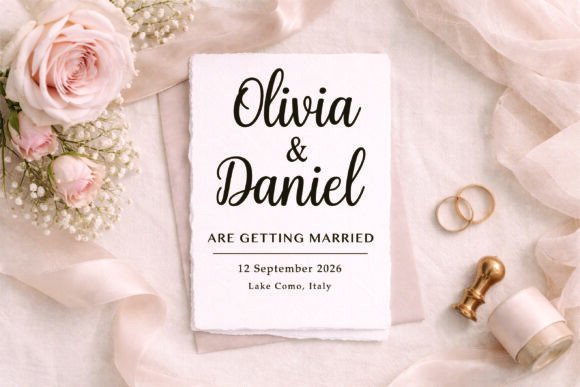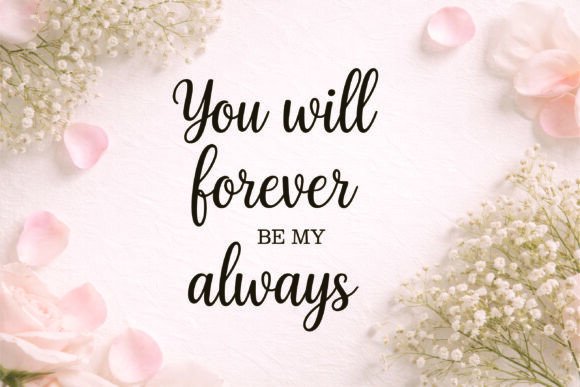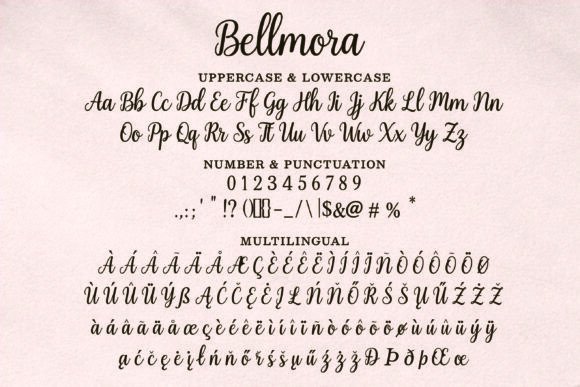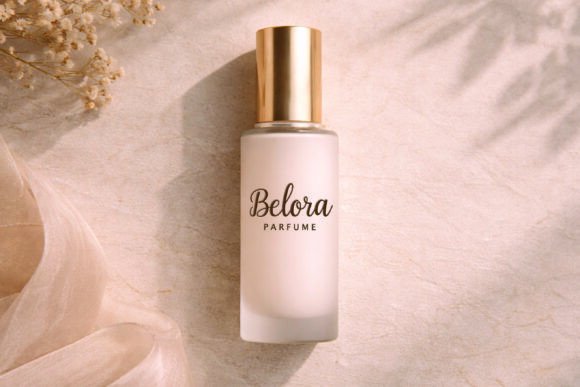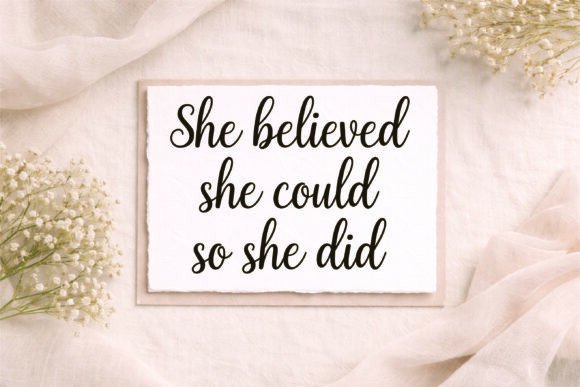
Bellmora Font: Elevate Your Designs with Elegance and Sophistication
In the world of typography, fonts play a crucial role in conveying the tone and personality of a design. For those seeking an elegant and modern script font that exudes romance and femininity, Bellmora is an exceptional choice. This stunning font is designed to bring sophistication and charm to various design projects, making it perfect for designers and crafters looking to elevate their work.
The Beauty of Bellmora
Bellmora is an elegant modern script font characterized by its smooth flowing curves and natural handwritten feel. The font’s design is infused with a romantic and feminine touch, making it ideal for projects that require a touch of luxury and refinement. Its graceful letterforms create a timeless look that works beautifully across both digital and print designs.
Bellmora’s versatility makes it suitable for a wide range of design applications. Some of the most popular uses for this font include:
- Wedding Invitations: Add a touch of elegance and sophistication to your wedding invitations, save-the-date cards, and other wedding-related designs.
- Branding: Use Bellmora to create a luxurious brand identity that reflects your company’s values and personality.
- Logos: Create a stunning logo that showcases your brand’s elegance and refinement.
- Packaging: Elevate your product packaging with Bellmora’s sophisticated and eye-catching design.
- Social Media: Use Bellmora to create engaging social media graphics, posts, and stories that reflect your brand’s personality.
- Typography Projects: Bellmora is perfect for typography projects that require a touch of elegance and sophistication.
Key Features of Bellmora
Bellmora boasts several key features that make it an exceptional font choice:
- Smooth Flowing Curves: Bellmora’s smooth curves create a natural and elegant look that is perfect for designs that require a touch of sophistication.
- Natural Handwritten Feel: The font’s handwritten feel adds a personal touch to your designs, making them more relatable and engaging.
- Romantic and Feminine Touch: Bellmora’s romantic and feminine design makes it perfect for projects that require a touch of elegance and refinement.
- Timeless and Luxurious Look: The font’s timeless look ensures that your designs remain stylish and relevant for years to come.
Tips for Using Bellmora
To get the most out of Bellmora, consider the following tips:
- Pair with Neutral Colors: Pair Bellmora with neutral colors like black, white, or pastel shades to create a sophisticated and elegant look.
- Experiment with Font Sizes: Experiment with different font sizes to create visual hierarchy and add emphasis to specific design elements.
- Use in Combination with Other Fonts: Use Bellmora in combination with other fonts to create a unique and eye-catching design.
Bellmora is an exceptional font choice for designers and crafters seeking to elevate their designs with elegance and sophistication. Its smooth flowing curves, natural handwritten feel, and romantic and feminine touch make it perfect for a wide range of design projects. With its timeless and luxurious look, Bellmora is sure to become a staple in your font collection.
Whether you’re working on a wedding invitation, branding project, or social media design, Bellmora is an excellent choice. Its versatility and elegance ensure that your designs will stand out and leave a lasting impression.